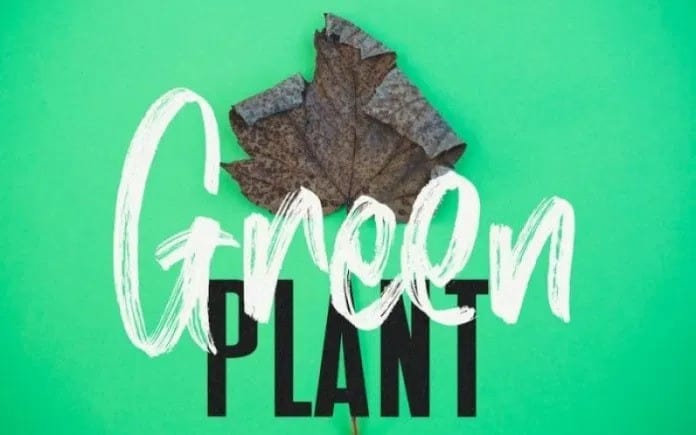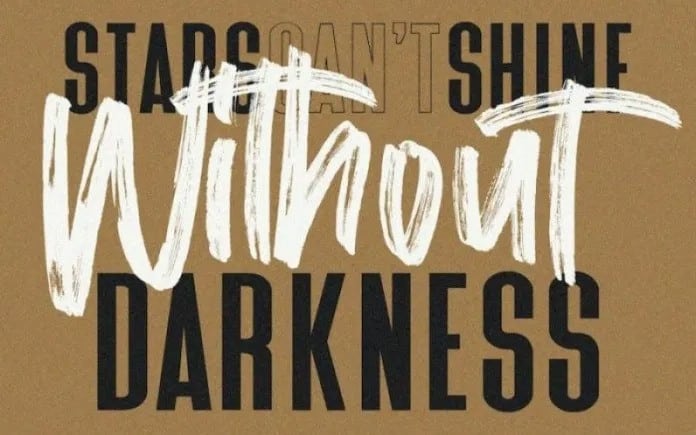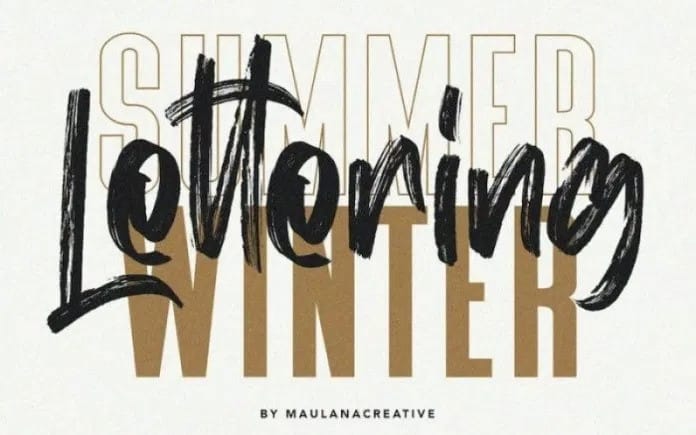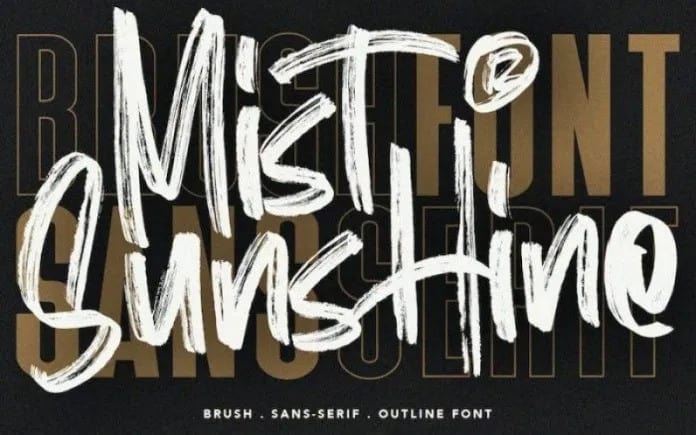
Mist Sunshine Brush Font
Mist Sunshine Font is a brush script font made manually in paper and dry brush pen. It’s designed and shared by Maulana Creative. Give your designs an authentic brush handcrafted feel. It’s perfectly suited to signature, stationery, logo, typography quotes, magazine or book cover, website header etc.